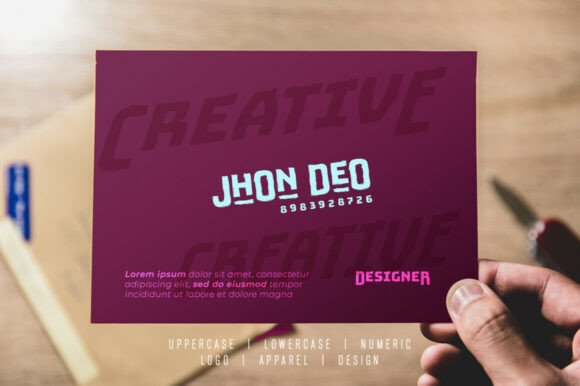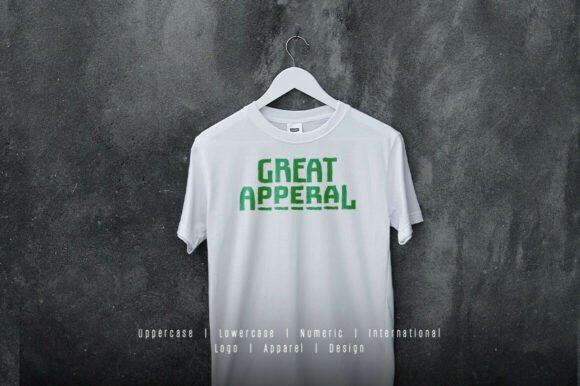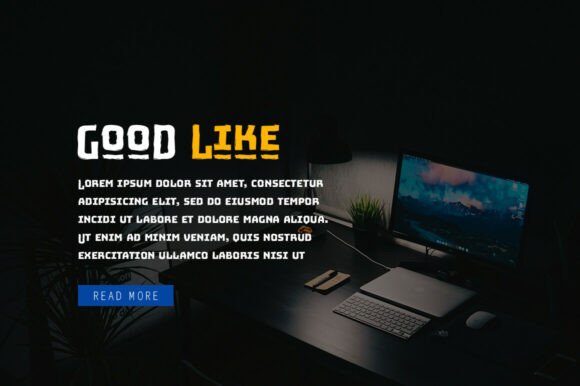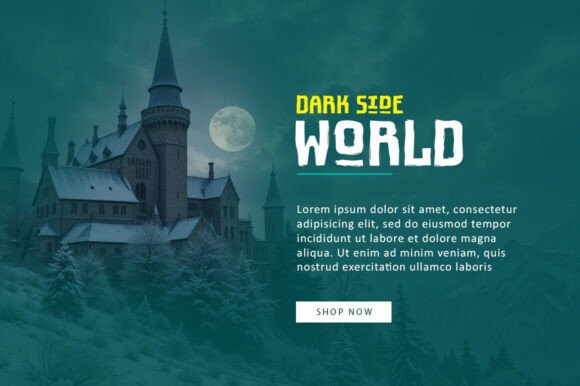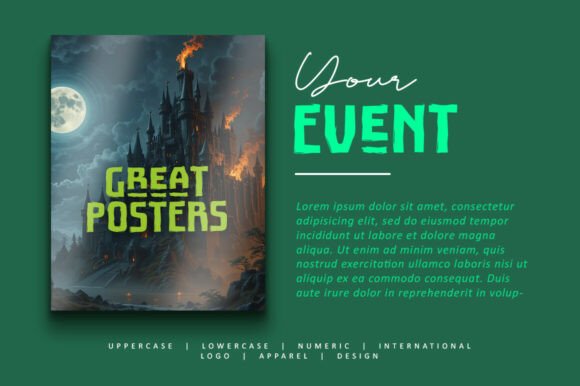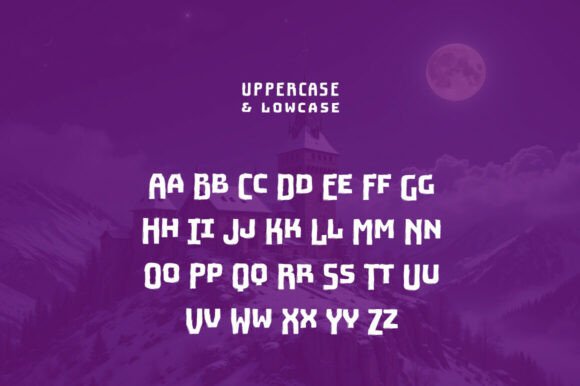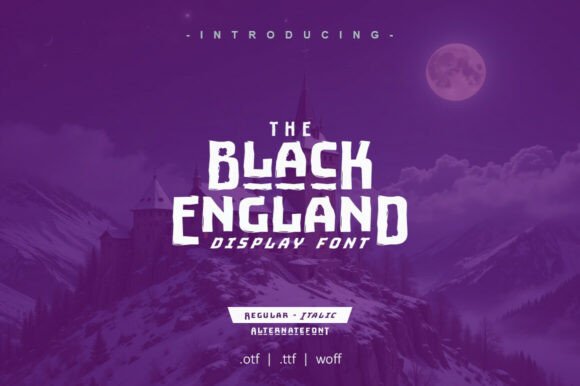
Unleash the Drama: Discover the Black England Font
In the realm of typography, few fonts manage to strike a balance between medieval charm and modern impact. However, Black England achieves this feat with remarkable finesse. This bold, textured display font is a versatile tool for designers and crafters looking to infuse their projects with a touch of drama and mystery.
Medieval Meets Modern: The Unique Appeal of Black England
Black England is not just a font; it’s an experience. Its rugged edges and vintage-inspired forms evoke a sense of nostalgia, transporting us to a bygone era of grandeur and mystique. This font is perfect for projects that demand a strong visual presence, such as fantasy titles, game covers, and posters. Whether you’re working on a book cover, a movie poster, or a branding project, Black England is sure to leave a lasting impression.
Versatility at Its Core
One of the standout features of Black England is its versatility. The font comes in three distinct styles: regular, italic, and alternate. This range allows designers to experiment with different looks and tones, ensuring that their project stands out without ever appearing monotonous. The regular style offers a solid, dependable foundation, while the italic variant adds a dynamic, fluid touch. The alternate style provides a fresh take, with subtle variations that can add depth and interest to your designs.
Crafting with Character: Ideal Projects for Black England
Black England’s unique character makes it suitable for a variety of projects. Here are a few ideas where this font truly shines:
- Fantasy Titles: Whether you’re working on a novel, a comic book, or a game, Black England can help create titles that transport readers to magical worlds.
- Game Covers: For video games, especially those in the RPG or strategy genres, this font can convey a sense of epic adventure and challenge.
- Posters and Flyers: For events, promotions, or announcements that need to stand out, Black England’s bold and textured appearance is sure to grab attention.
- Branding and Logos: For businesses looking to project a strong, memorable image, this font can be a powerful tool in creating a distinctive brand identity.
Tips for Working with Black England
To get the most out of Black England, consider the following tips:
- Contrast is Key: Use Black England as a headline font and pair it with a clean, simple font for body text to create visual contrast.
- Play with Colors: Experiment with different colors to find the perfect match for your project. Dark backgrounds can make the font pop, but don’t be afraid to try it on light backgrounds for a different effect.
- Texture and Effects: Given its textured nature, Black England can sometimes compete with additional textures or effects. Balance these elements carefully to avoid visual overload.
Black England is more than just a font; it’s a design statement. Its unique blend of medieval charm and modern impact makes it an invaluable asset for designers and crafters looking to add drama and mystery to their projects. With its versatility and range of styles, Black England is poised to become a go-to font for anyone looking to make a bold impression. Whether you’re crafting fantasy titles, designing game covers, or creating posters, Black England invites you to unleash your creativity and bring your vision to life.